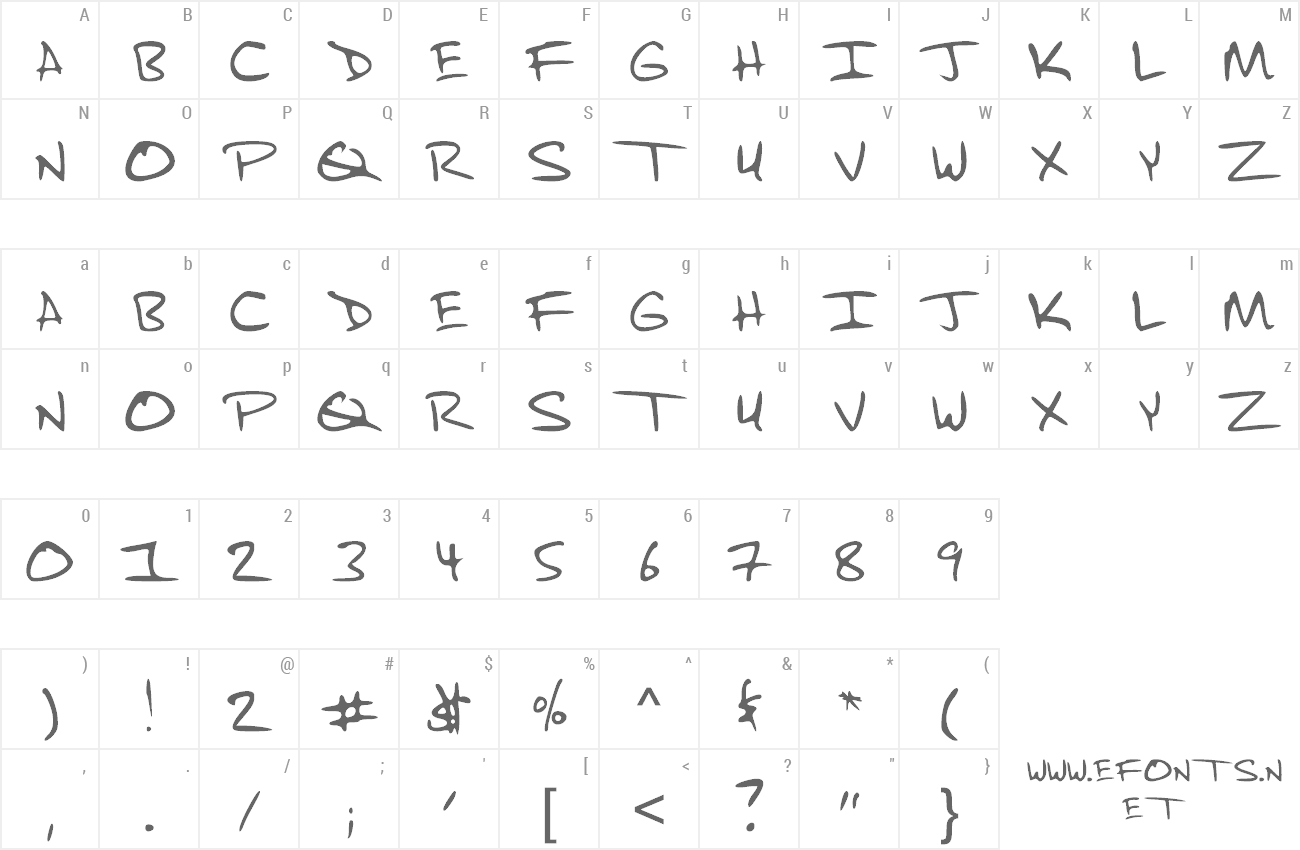
| Font name: | Pedro Promo |
| Author: | Brad Martin |
| Note by Brad Martin | |
| My Dad's Handwriting... also my first font... will probably refine later. |